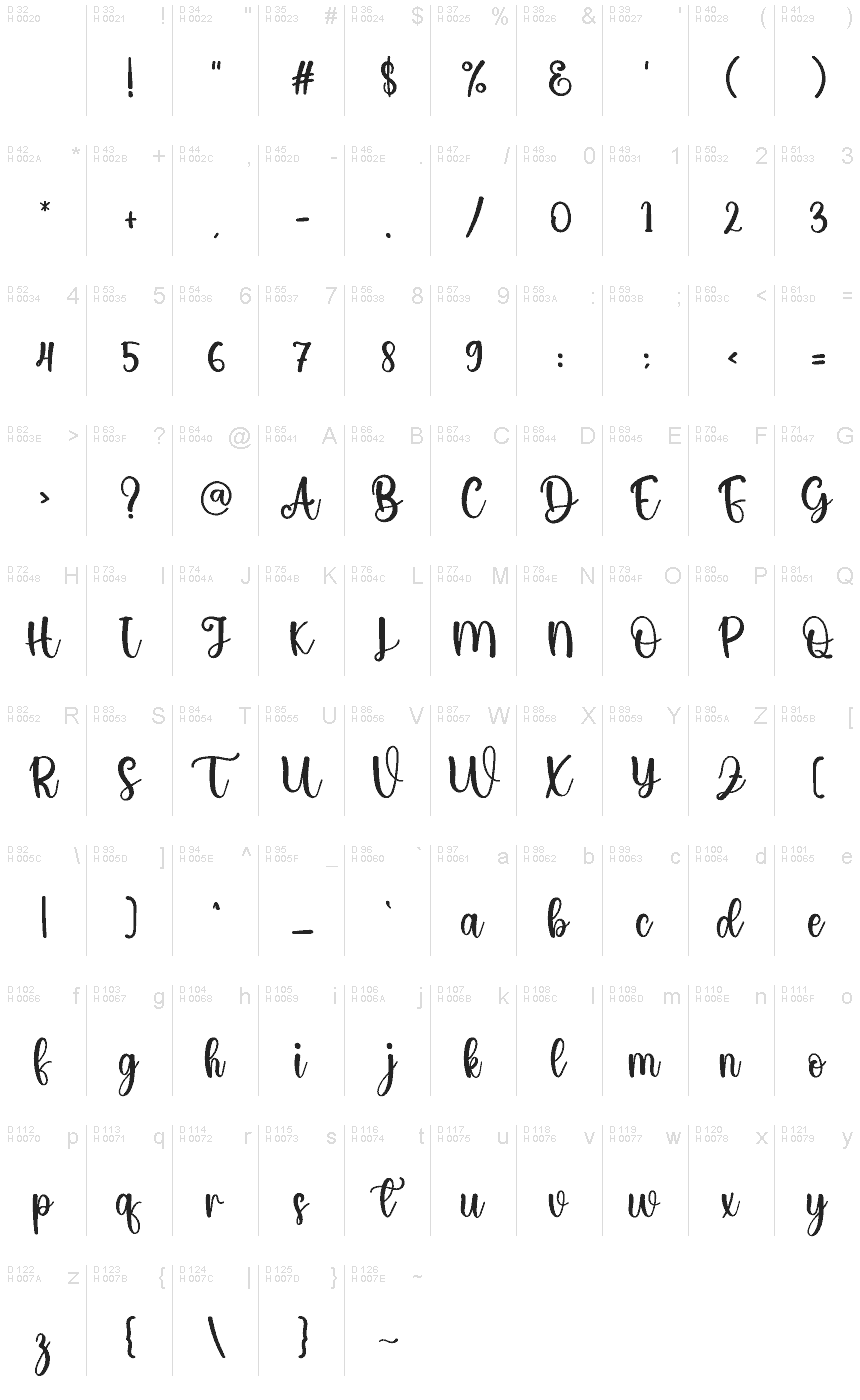
Teddy
Teddy font from PiPi Creative is a free handwritten font with condensed uppercase letters. It’s described as fluid and charming by its author and it includes a limited selection of glyphs and characters. Stylized small caps are present in-hand along which come with additional joining elements. Combining various writing styles, Teddy ultimately sets friendly casual vibes in all visual projects.
Create unique branding designs that vary between identity names, labels, product packages, or tags. Combine different styles to achieve headings for clothing lines, department stores, and boutiques in diverse genres of handwritten calligraphic typography.